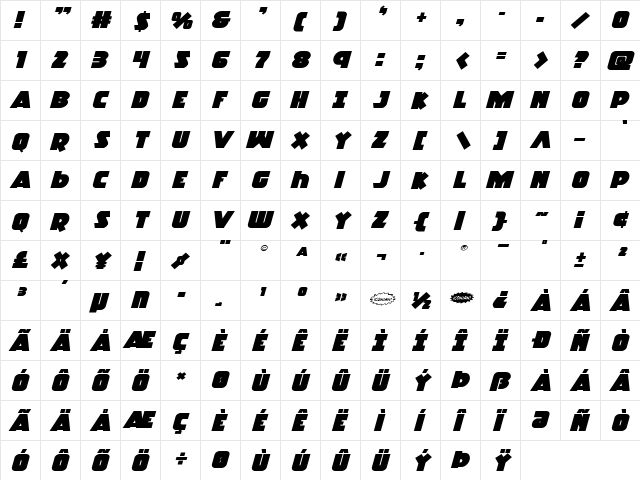
Racket Squad Expanded Italic Expanded Italic
Design Context for Racket Squad Expanded Italic Typeface
Racket Squad Expanded Italic is a composed and adaptable typeface that performs quietly and consistently across a wide range of design contexts. Its italic angle brings a sense of urgency and motion to the letterforms.
Pro Tip: Use Racket Squad Expanded Italic for emphasis, pull quotes, and subheadings where its slanted energy can add rhythm to the layout.